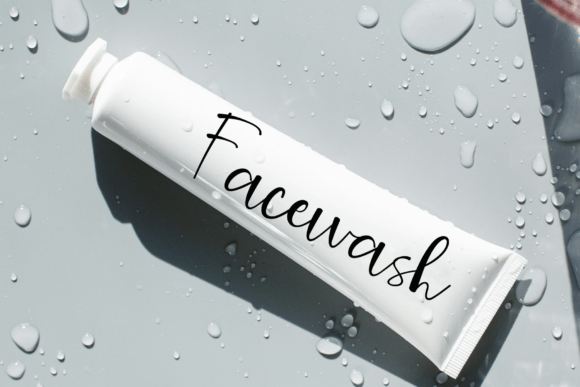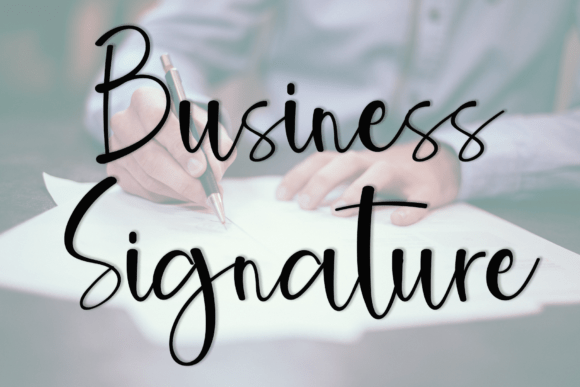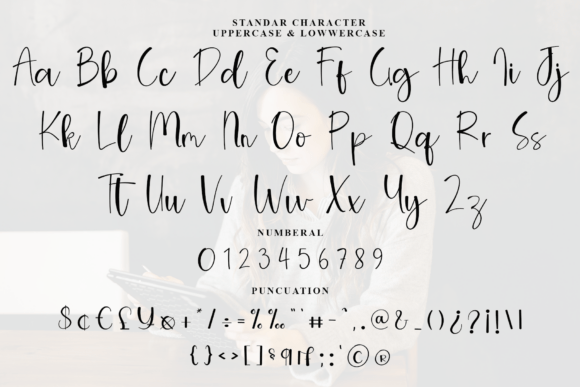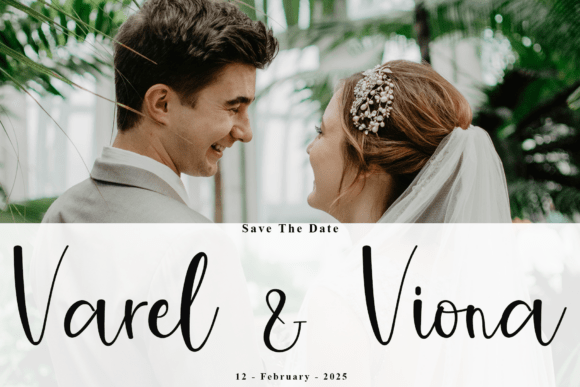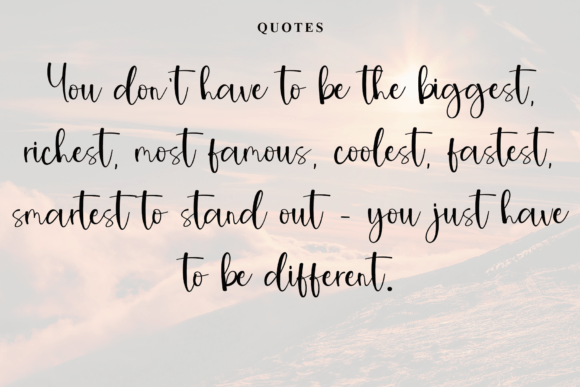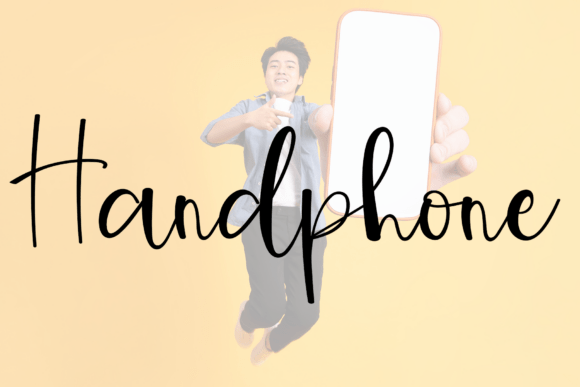
Discover the Charm of Background Signature Font: Elevate Your Designs with a Timeless Handwritten Style
Are you on the hunt for a font that adds a personal touch to your designs? Look no further than the Background Signature Font, a lovely and timeless handwritten font that is sure to capture the hearts of designers and crafters alike. This exquisite font is perfect for creating eye-catching logos, branding, and quotes that stand out from the crowd.
The Unique Charm of Background Signature Font
What sets Background Signature Font apart is its unique and beautiful touch. Every letter is carefully crafted to bring a sense of warmth and personality to your designs. The font’s handwritten style gives it a distinctly human feel, making it perfect for projects where you want to convey a sense of authenticity and approachability.
Background Signature Font is incredibly versatile, making it suitable for a wide range of design projects. Here are just a few ideas to get you started:
- Logos and Branding: Create a lasting impression with a custom logo that showcases your brand’s personality.
- Quotes and Inspirational Messages: Add a touch of elegance to your quotes and make them truly shareable.
- Stationery and Invitations: Elevate your paper goods with a font that exudes sophistication and charm.
- Social Media Graphics: Stand out on social media with eye-catching graphics that showcase your brand’s unique voice.
Why Choose Background Signature Font?
With so many fonts to choose from, why should you opt for Background Signature Font? Here are just a few compelling reasons:
- Timeless Appeal: This font’s classic style ensures it will never go out of fashion.
- Highly Readable: The font’s clear and legible design makes it perfect for use in a variety of contexts.
- Unique Character: Each letter has a distinct personality, adding a touch of whimsy to your designs.
Tips for Using Background Signature Font
To get the most out of Background Signature Font, here are a few expert tips:
In conclusion, Background Signature Font is a beautiful and timeless handwritten font that is sure to elevate your designs. With its unique charm, endless design possibilities, and high readability, it’s the perfect choice for designers and crafters looking to add a personal touch to their projects. So why wait? Discover the charm of Background Signature Font today and take your designs to the next level!